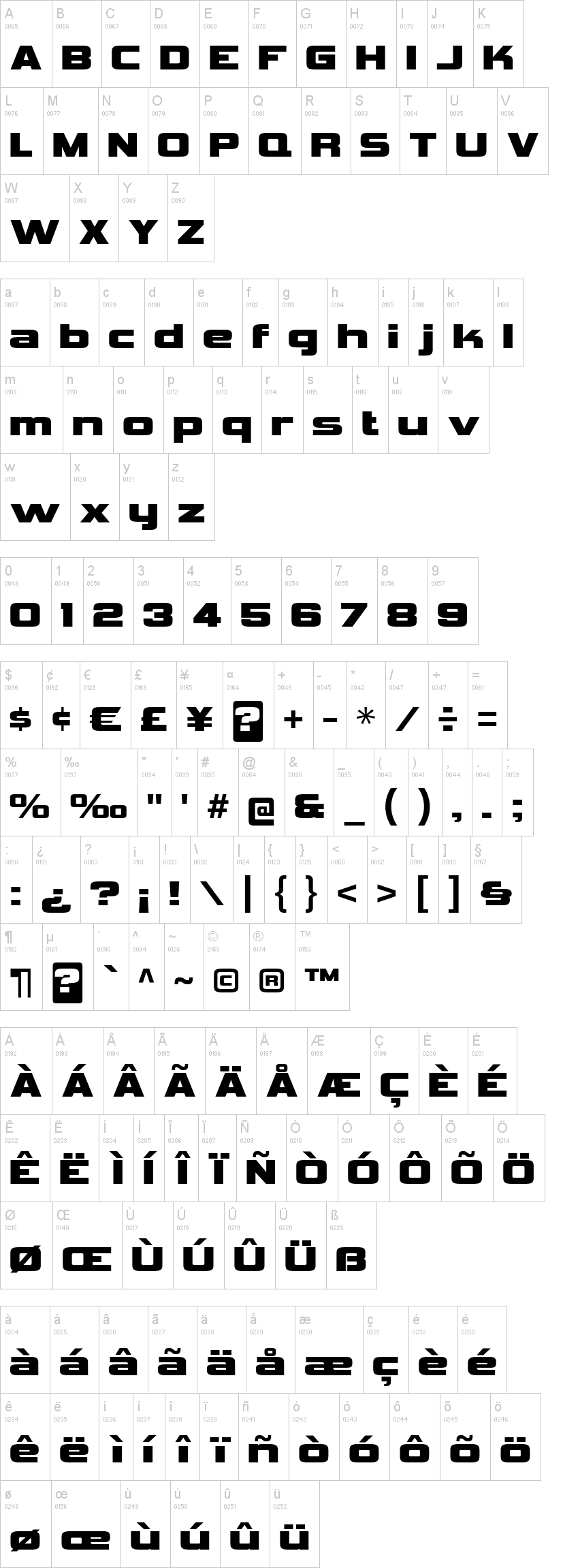
Шрифт Vipnagorgialla
Vipnagorgialla is what many consider to be one of the most intricate, elegant fonts ever designed. But hey, dont let me tell you what to think. You be the judge. Don't forget to read the files inside the zip for details.